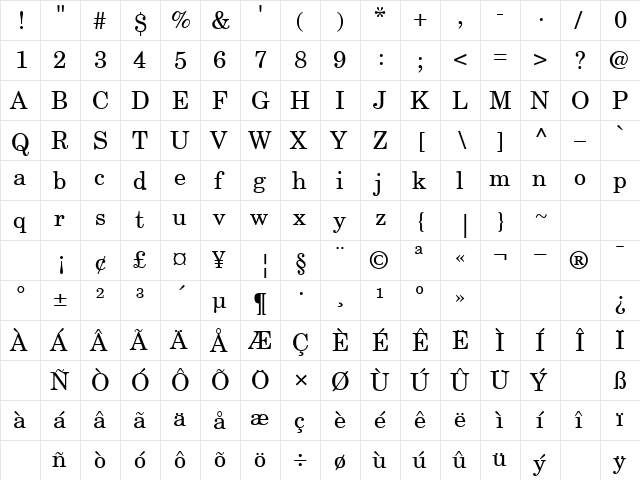
NewCentury Normal
Design Context for NewCentury Typeface
NewCentury is a composed and adaptable typeface that performs quietly and consistently across a wide range of design contexts.